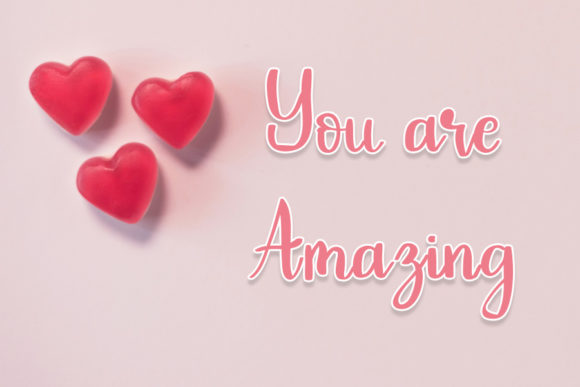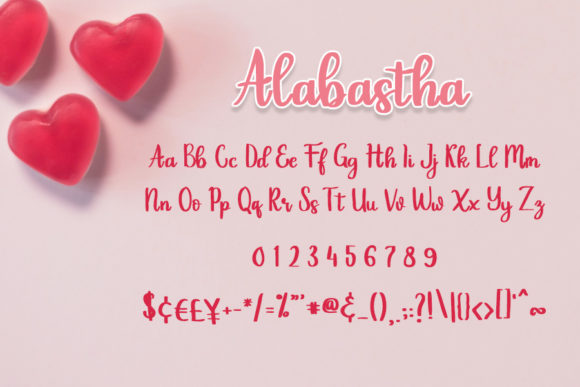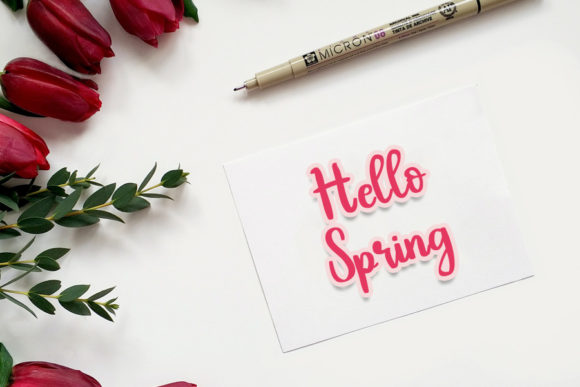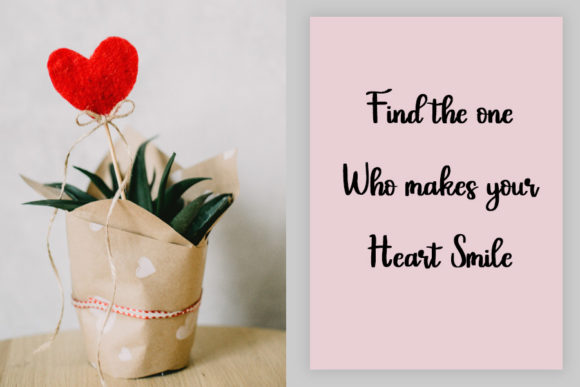
Unlock the Beauty of Handwritten Design
Do you remember the last time you stumbled upon a beautiful handwritten note from a loved one? The way the words danced across the page, filled with character and personality, left a lasting impression on your heart. That’s exactly what you can achieve with the stunning Alabastha Font.
This modern, delicate font is designed to evoke a sense of authenticity and charm, making it perfect for creating gorgeous wedding invitations, beautiful stationery art, eye-catching social media posts, and cute greeting cards. Whether you’re a professional designer or a creative enthusiast, the Alabastha Font is a valuable addition to your toolkit, offering endless possibilities for expression and creativity.
Alabastha Font Key Features
- Font Family: Alabastha Font comes in two font families, Alabastha Regular and Alabastha Bold.
- Unique Characteristics: Alabastha Font features a unique blend of modern and vintage elements, with intricate details and ornate flourishes, making it ideal for use in luxury branding, packaging, and editorial design.
Alabastha Font Review
Overall, I think Alabastha is a nice font, but it’s not without its flaws. Let’s start with what works well: ✨ The font’s unique blend of modern and vintage elements gives it a distinctive look that’s perfect for creative projects. ✨ The weight and contrast of the font make it easy to read, even at small sizes. ✨ The font also comes with a wide range of languages supported, which is a big plus for designers who work with international clients.
However, there are some limitations to consider: ⚠️ The font’s style can feel a bit inconsistent, with some letters looking more modern than others. ⚠️ The font also lacks bold and italic versions, which can make it harder to use in certain situations. ⚠️ Finally, the font’s OpenType features are limited, which can make it harder to customize the font’s behavior.
Overall, I’d say Alabastha is a solid choice for designers who want a unique font with a vintage feel. However, it’s not perfect, and you may need to use some workarounds to get the most out of it.
Pros and Cons:
- ✨ Unique blend of modern and vintage elements
- ✨ Easy to read, even at small sizes
- ✨ Wide range of languages supported
- ⚠️ Inconsistent style
- ⚠️ Limited bold and italic versions
- ⚠️ Limited OpenType features
Tips for Getting the Most Out of Alabastha Font
For best results, pair Alabastha font with high-contrast backgrounds and bold, clean graphics. Experiment with different font sizes and styles to achieve the desired effect.
Alabastha font is ideal for creative projects such as:
- Artistic typography and quotes
Alternatives to Alabastha Font
Playfair Display is an elegant and luxurious serif font that is perfect for use in high-end branding, advertising, and editorial design. It is ideal for creating a sophisticated and refined atmosphere, making it a great alternative to Alabastha Font for designers who want to add a touch of luxury to their designs.
Comparison: While Alabastha Font has a more modern and sleek feel, Playfair Display has a more classic and traditional look. Playfair Display is also more ornate and decorative, making it a better choice for designers who want to add visual interest to their designs.
Great Vibes is a modern and elegant script font that is perfect for use in branding, advertising, and editorial design. It is ideal for creating a sophisticated and refined atmosphere, making it a great alternative to Alabastha Font for designers who want to add a touch of elegance to their designs.
Comparison: While Alabastha Font has a more classic and timeless feel, Great Vibes has a more modern and trendy look. Great Vibes is also more cursive and flowing, making it a better choice for designers who want to add a touch of whimsy to their designs.